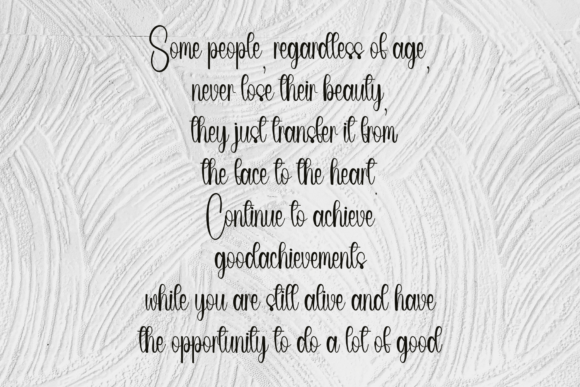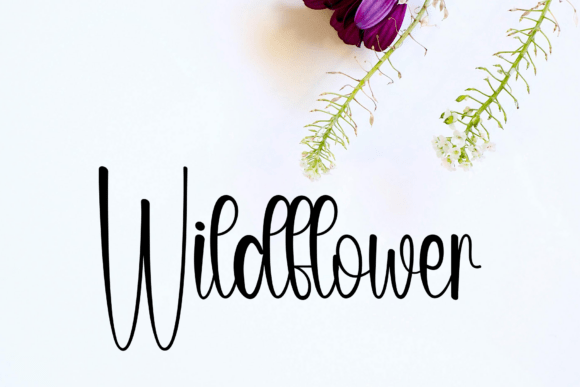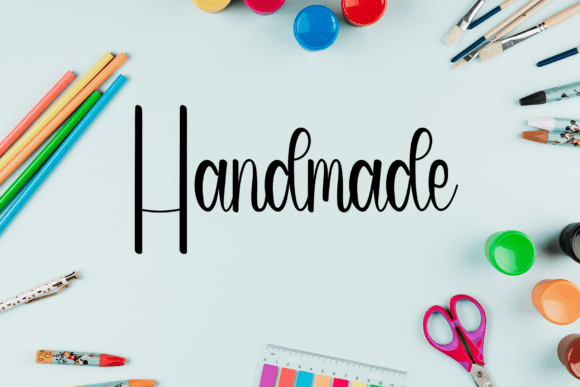
Introduction to Emeralad Font
Emeralad (Emerald) is an elegant, sweeping handwritten script that prioritizes fluid grace and sophistication.
Featuring dramatic loops and a rhythmic, calligraphic connection between characters, this font captures a sense of bespoke craftsmanship It is a stunning choice for luxury wedding stationery, high-end beauty branding, and romantic lifestyle content.